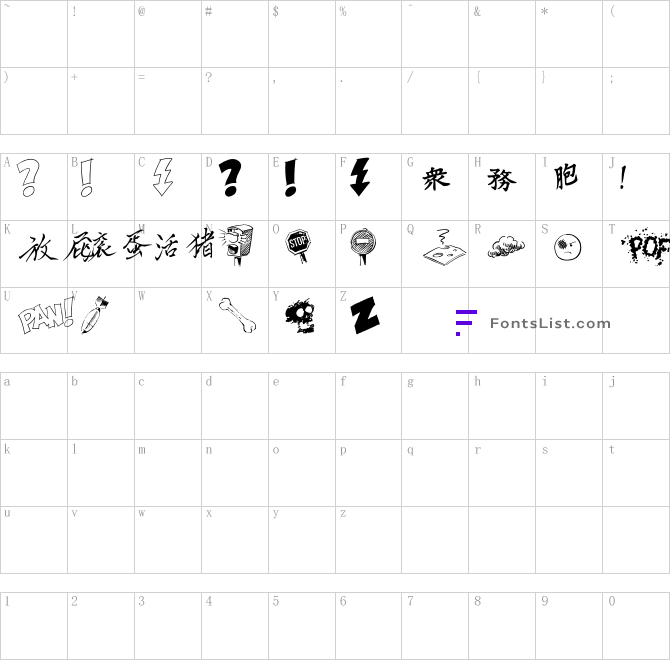
- Font Name:DamnedDingbatsEF Initials
DamnedDingbatsEF-Initials.otf is a very beautiful artistic font, DamnedDingbatsEF-Initials.otf is widely used in the design and printing of various books and pictures,DamnedDingbatsEF-Initials.otf has a strong visual impact,DamnedDingbatsEF-Initials.otf is a commonly used font in newspapers, magazines and books, and is used in posters, e-commerce Poster design, store design, logo design, font design and other fields.DamnedDingbatsEF-Initials.